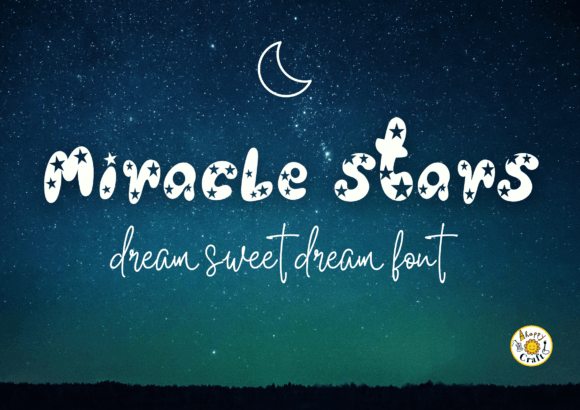
Dive into a galaxy far, far away with Miracle Stars Font – your cosmic companion for captivating designs!
Ignite your imagination with this whimsical display font, crafted by the digital sorcerers at Ahappycraft. Its celestial aura will transport you to a universe of boundless creativity, where star-studded letters dance across the screen.
This font is not just a celestial marvel but a universe of possibilities. Its quirky charm will cast a spell on your designs, making them shine with otherworldly appeal. From enchanting logos that shimmer like distant stars to cosmic posters that inspire awe, Miracle Stars Font will take your designs to infinity and beyond.
Indulge in the dark side or embrace the light – the font's versatility will adapt to your every whim. Use it to craft majestic headlines that soar through the cosmos or compose elegant body text that flows effortlessly. Its cosmic powers know no bounds!
Unlock the secrets of the Force with Miracle Stars Font. Let its celestial energy guide your designs and create a galaxy of unforgettable impressions. May the font be with you!